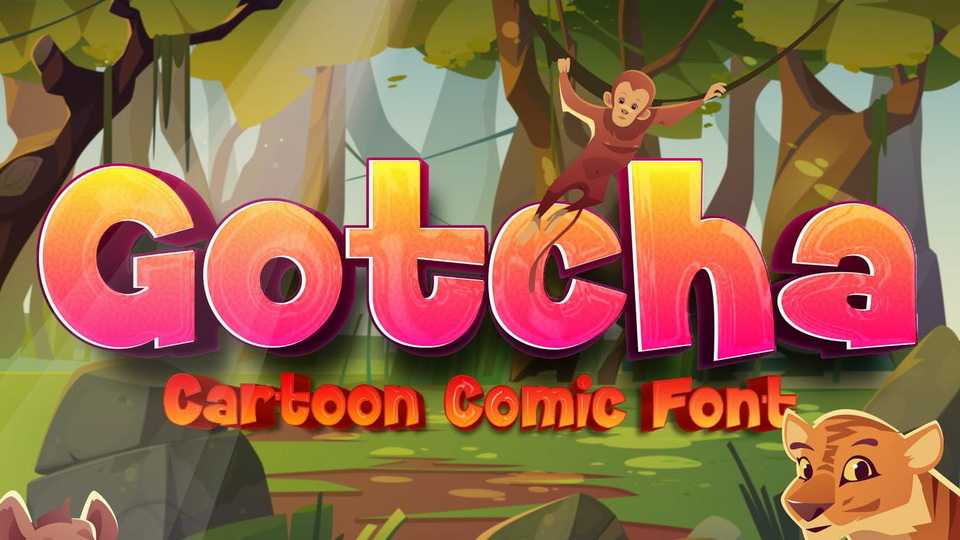
Download Gotcha font, a cartoon gaming typeface. Sweet bouncy baseline with cartoon shape font, the bold but playful sans serif shape will bring a lot of joy in kids hearts.